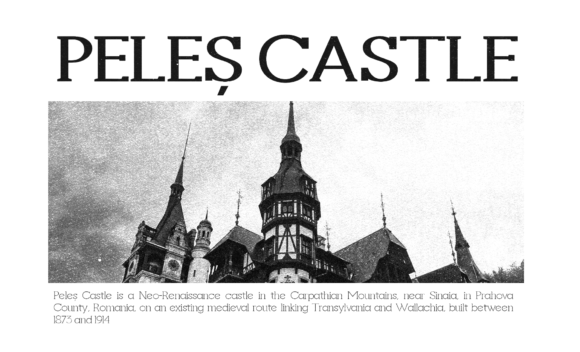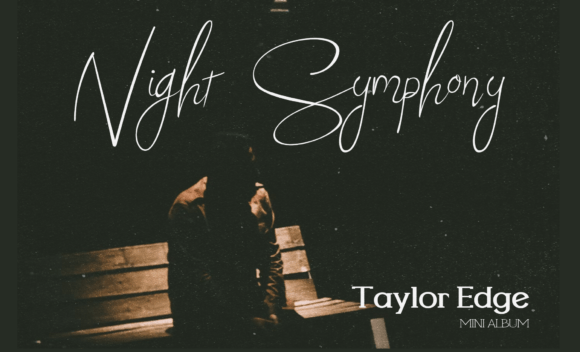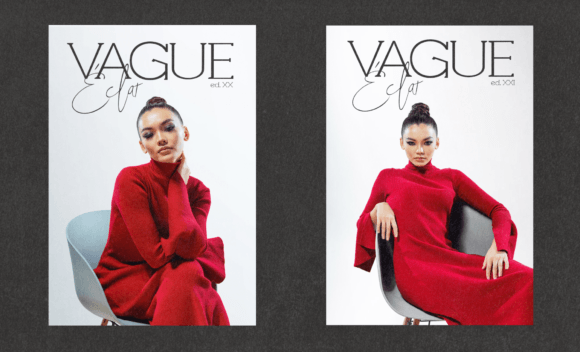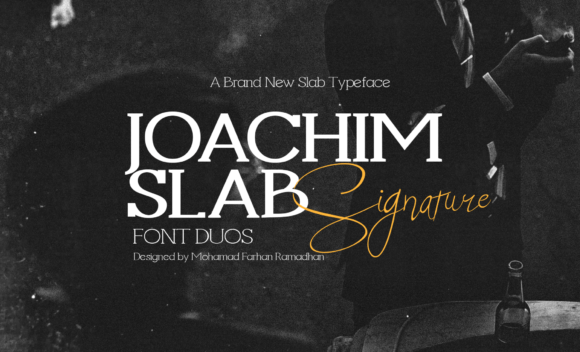
Introduction to Joachim Slab Font
Experience the sophistication and sublime aesthetic of Joachim Slab, a dual-style Typeface that effortlessly infuses modern elegance into every design.
Known for its unique signature style, this font showcases an undeniable touch of handcrafted allure With distinct versions in regular, bold, and signature available, Joachim Slab’s versatility shines in a myriad of applications – from reinventing brand identities, gracing movie posters, turning book covers into conversation pieces, commanding attention on headlines to being the soul of album covers and logotypes.